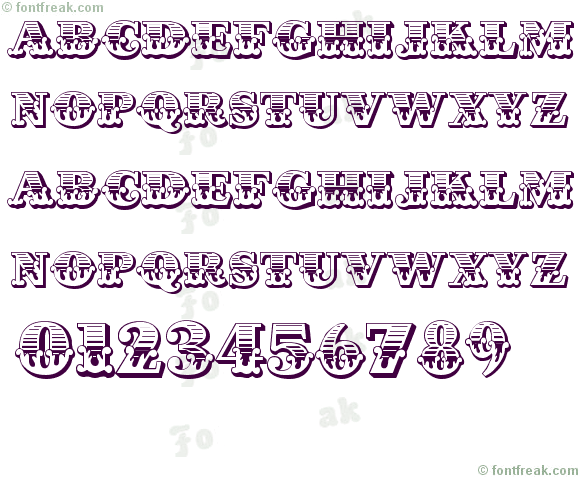
Cast Iron
The Cast Iron font by West Wind Fonts is a striking display typeface that embodies a unique blend of vintage charm and modern flair. This decorative font features bold, heavy strokes with a playful twist, characterized by its intricate detailing and whimsical elements. The stroke weight is substantial, creating a sense of solidity and presence, while the contrast between thick and thin lines adds an engaging visual dynamic. The spacing is thoughtfully designed, ensuring that each character stands out without overcrowding, making it an excellent choice for attention-grabbing designs.
Cast Iron shines in a variety of use cases, particularly in settings that call for a touch of personality and flair. It is ideal for creating eye-catching movie posters that demand attention, or for designing memorable restaurant menus that reflect a unique dining experience. Additionally, the font works wonderfully for retro-themed event invitations, such as birthday parties or anniversaries, where a hint of nostalgia is desired. Small business owners can also leverage this font for promotional materials, signage, and branding that needs to convey a fun yet professional image.
The target audience for the Cast Iron font includes graphic designers looking to add a distinctive typeface to their toolkit, small business owners who want to enhance their marketing materials, and content creators seeking to make their work stand out visually.
What sets the Cast Iron font apart is its ability to combine playful elements with a sense of durability, making it both versatile and memorable. Its unique character and free availability as a Cast Iron font free download make it an excellent choice for anyone looking to infuse their projects with creativity and style.